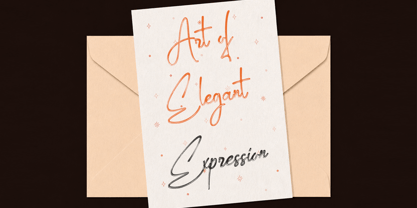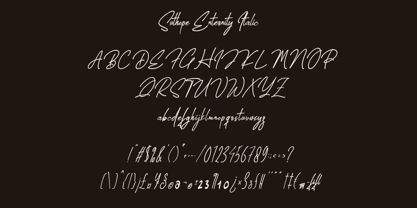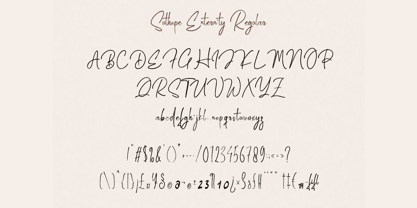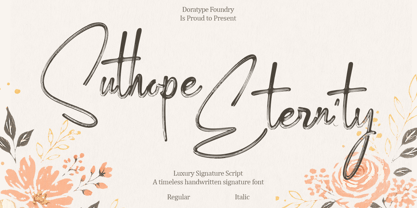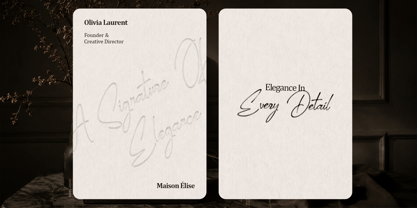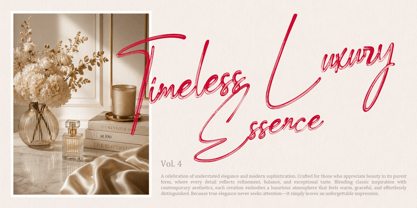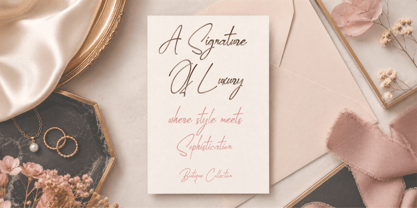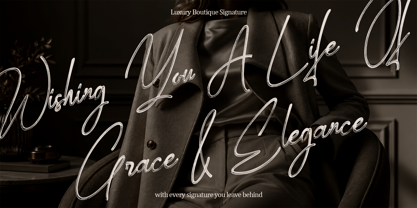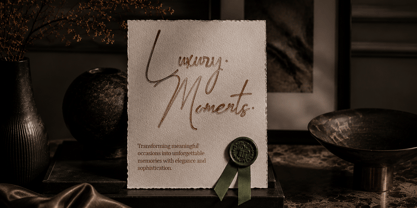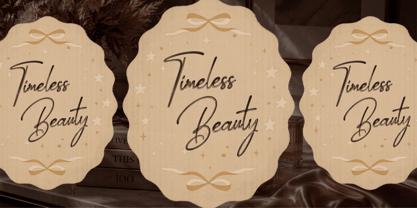
Suthope Enternity
by Dora Typefoundry
The Suthope Enternity Font Family was designed by Zahratul Laila and published by Dora Typefoundry. Suthope Enternity contains 2 styles and family package options. More about this family
Suthope Sternty is a signature script font that exudes luxury through smooth, flowing, and character-rich strokes. Blending elegant, fine lines with natural stroke variations, it delivers an authentic, high-end handwritten feel while maintaining excellent readability. Every curve is crafted to create an air of exclusivity, making it perfectly suited for a wide range of premium design applications.
Designed to reinforce a modern yet timeless visual identity, Suthope Sternty is ideal for luxury branding, logos, product packaging, wedding invitations, editorial layouts, social media, and creative projects that prioritize elegant aesthetics. It adds a touch that is both personal and professional, making it the perfect choice for designers seeking typography with a graceful and memorable character.
Designers: Zahratul Laila
Foundry: Dora Typefoundry